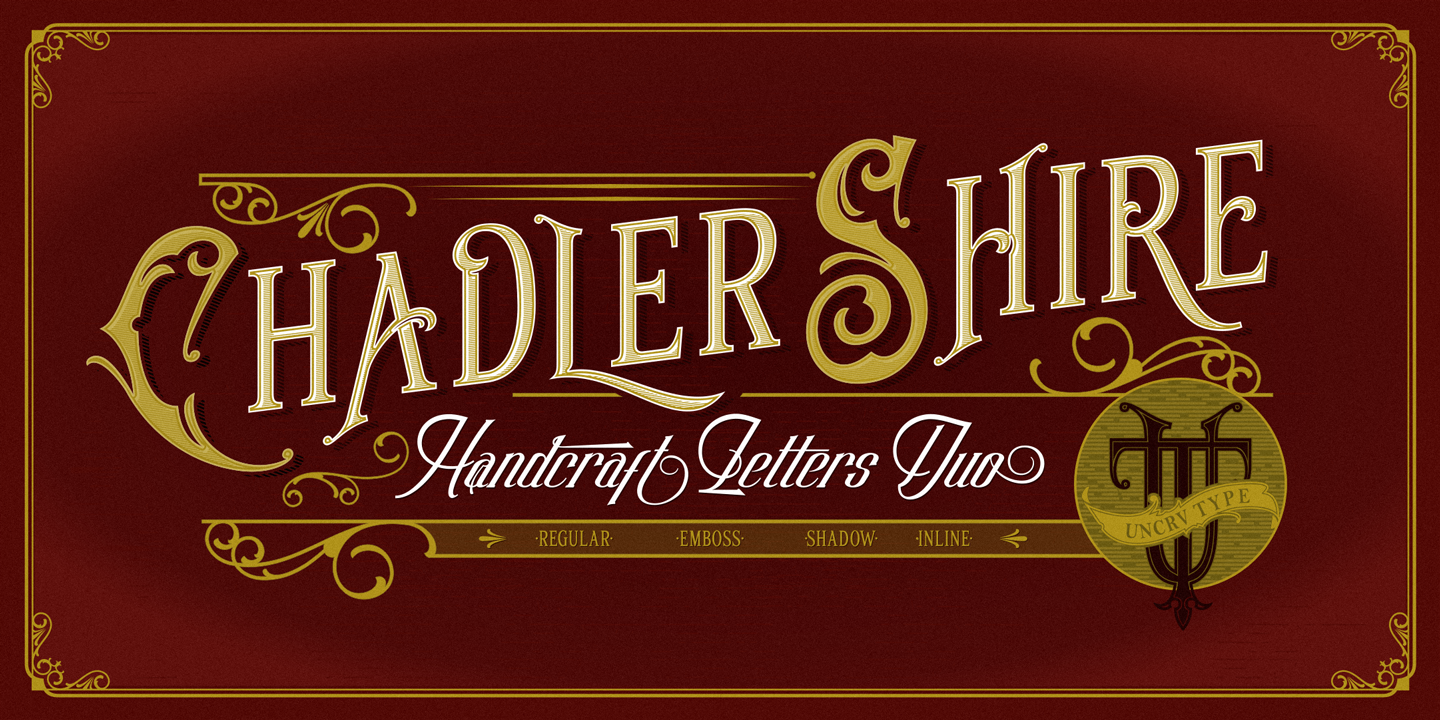
Chadlershire Font is ideal for English manor house branding, countryside estate materials, traditional tea house signage, heritage luxury hotels, aristocratic event invitations, distinguished British publications, classic literary covers, and authentic English countryside tourism.
This font is exciting because it embodies the timeless elegance and aristocratic refinement of English heritage with distinguished letterforms that convey centuries of tradition, cultural sophistication, and refined British sensibility. The Chadlershire Font captures the essence of English countryside charm and aristocratic grace, transforming ordinary text into distinguished expressions that honor the rich traditions of British culture and countryside elegance.
The Chadlershire Font family includes heritage-inspired variations such as Regular, Bold, Light, Manor, Italic, Estate, Condensed, and Extended versions, providing English heritage designers with comprehensive tools to create authentic typography that celebrates British cultural traditions and aristocratic refinement across all countryside applications and heritage communications.
Experience English elegance with Chadlershire Font Free Download that brings aristocratic sophistication to every heritage design project. This distinguished typeface combines British cultural aesthetics with contemporary functionality, making it perfect for luxury hotels, heritage tourism operators, and organizations celebrating English traditions and countryside culture. The font's refined character design ensures your message conveys cultural authority and aristocratic elegance while maintaining excellent readability across all heritage applications. Whether you're developing English countryside branding, creating heritage tourism materials, or designing communications that celebrate British cultural traditions, Chadlershire Font delivers the distinguished typography that resonates with audiences who appreciate English refinement and cultural heritage. Its versatile design works beautifully across digital and print media while preserving the aristocratic dignity that makes British heritage communications feel genuinely distinguished and worthy of the respect that comes from centuries of cultural refinement and the timeless appeal of English countryside elegance and traditional British hospitality.